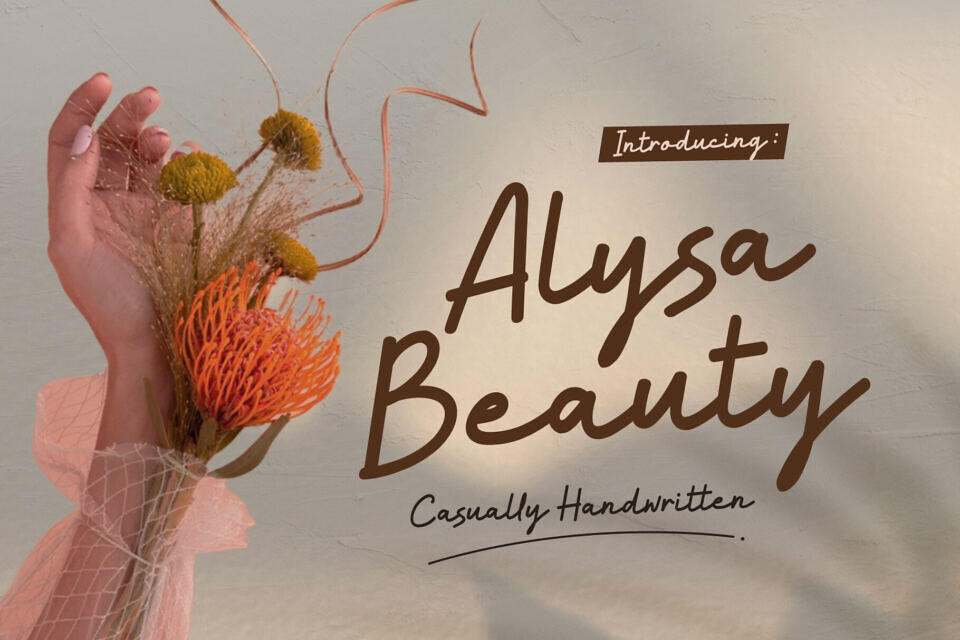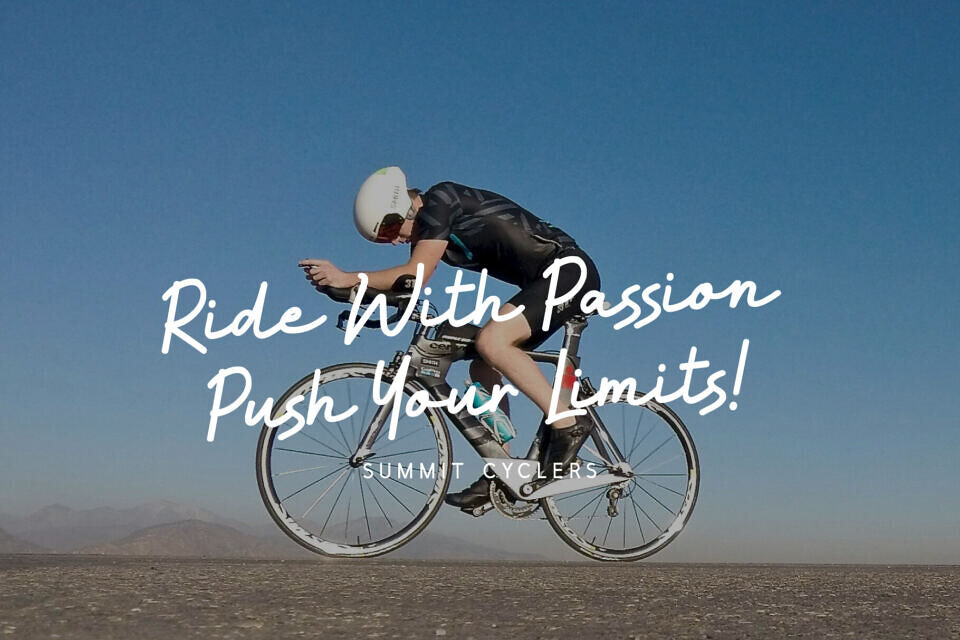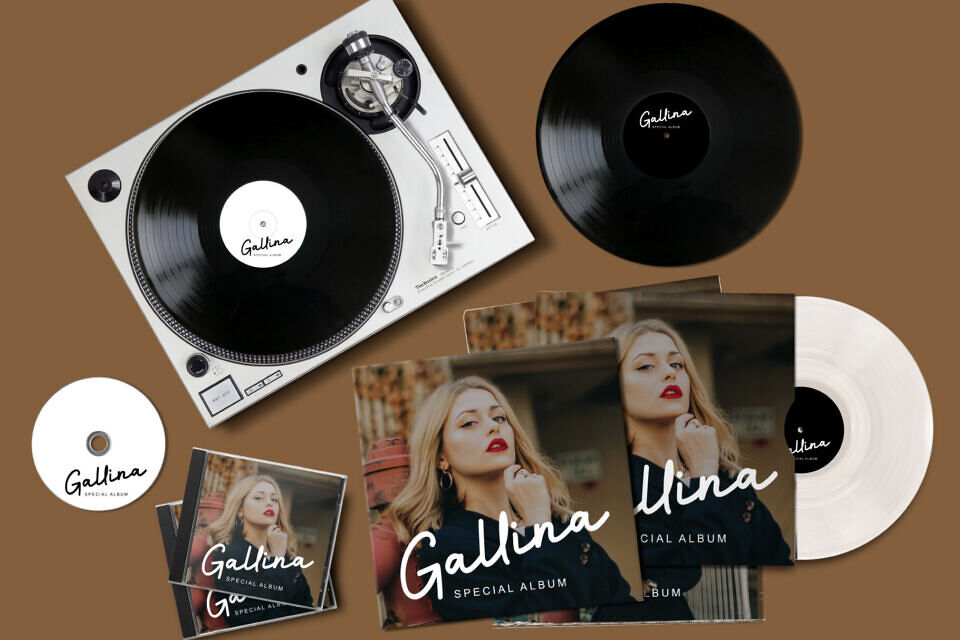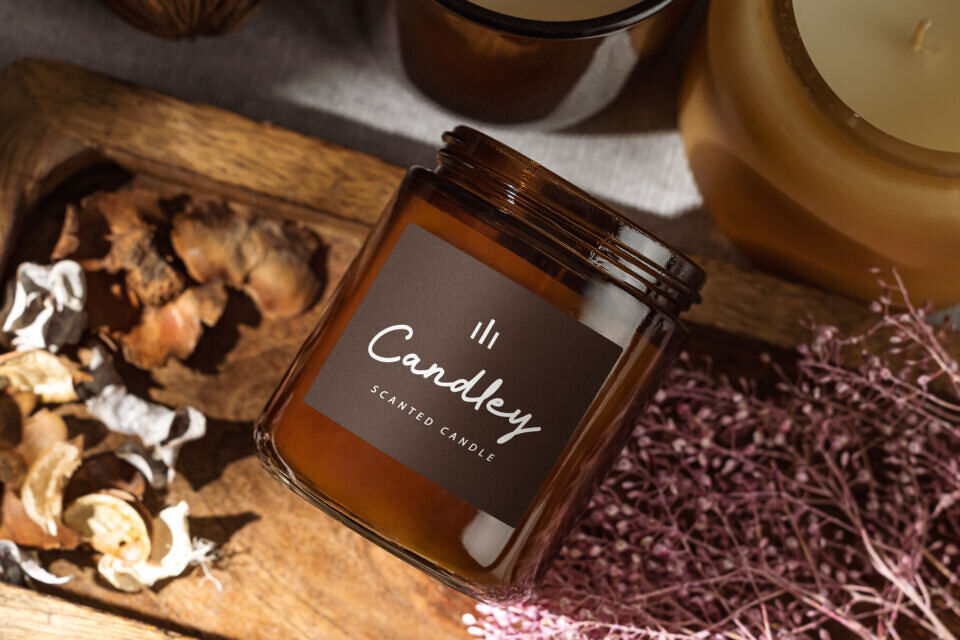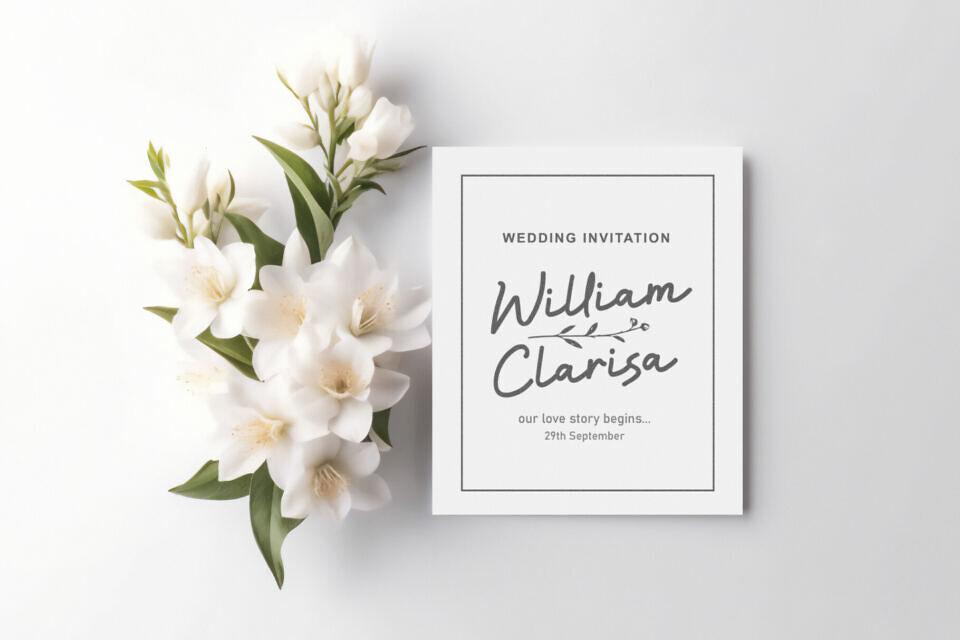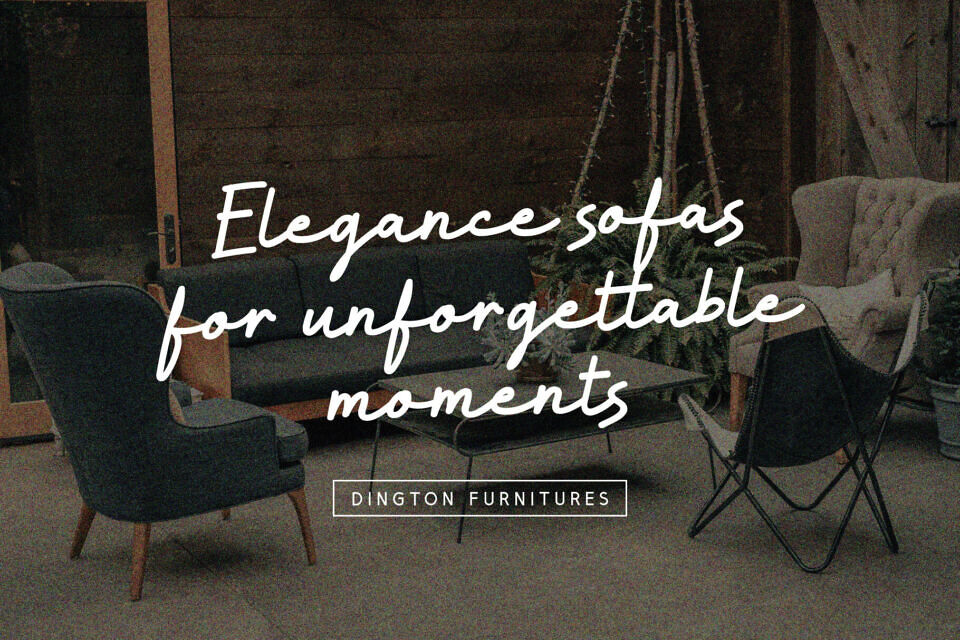
Alysa Beauty Font
Alysa Beauty is the perfect casual handwritten font that brings a unique blend of elegance and authenticity to any creative project. With its effortlessly flowing curves and natural strokes, this font is ideal for a wide range of applications, from fashion and cosmetics to weddings, lifestyle branding, F&B, and beyond.
Whether you’re designing a chic logo, stylish invitation, or eye-catching social media post, Alysa Beauty will elevate your project with a touch of refined personality.